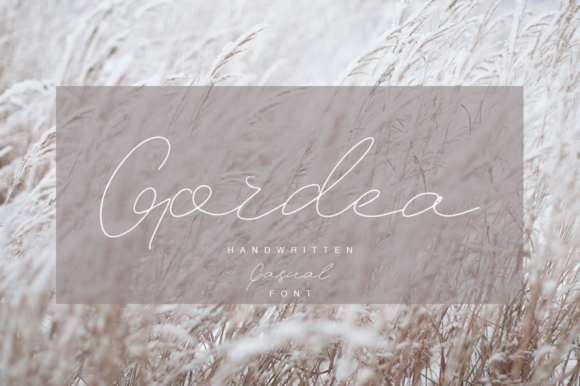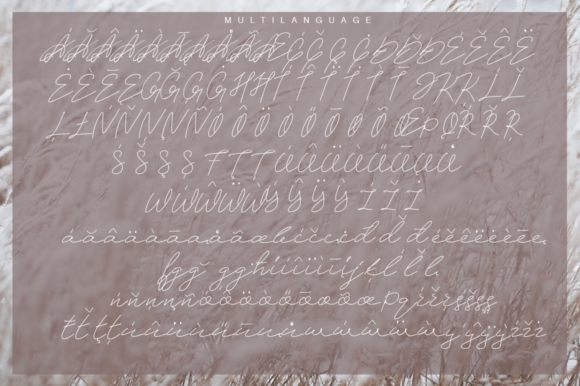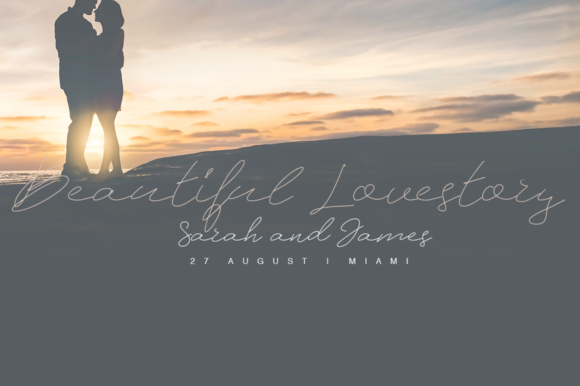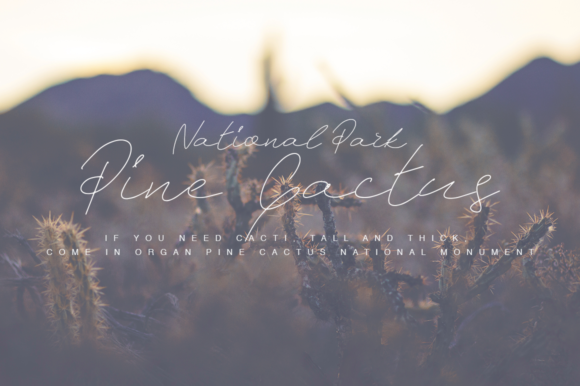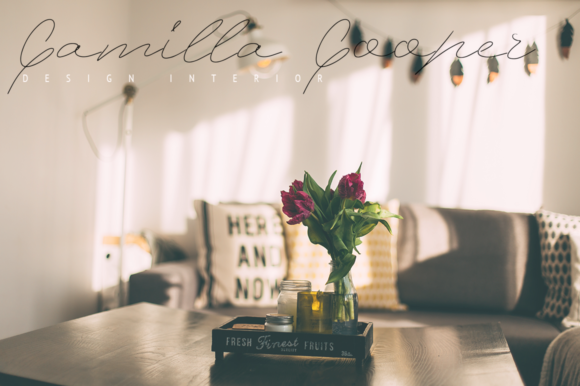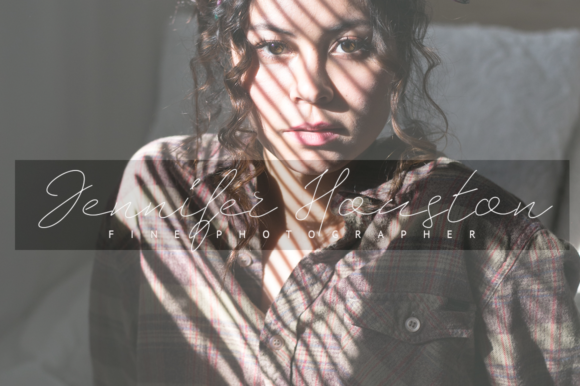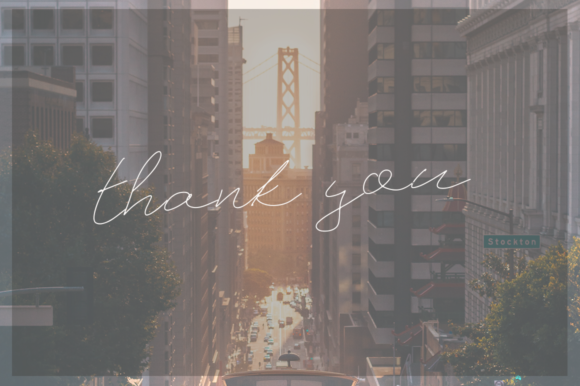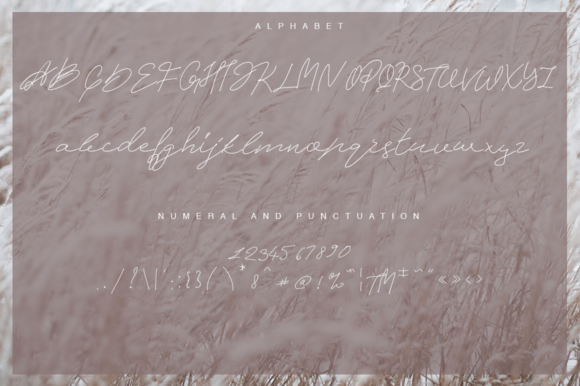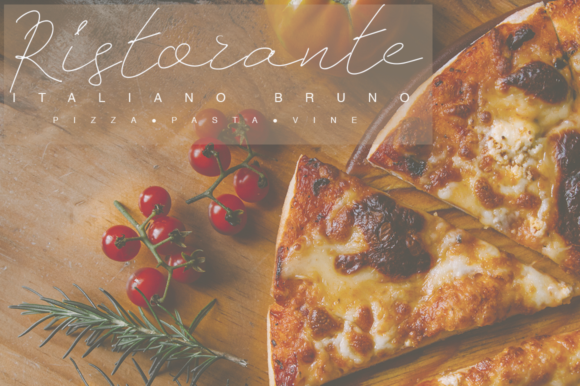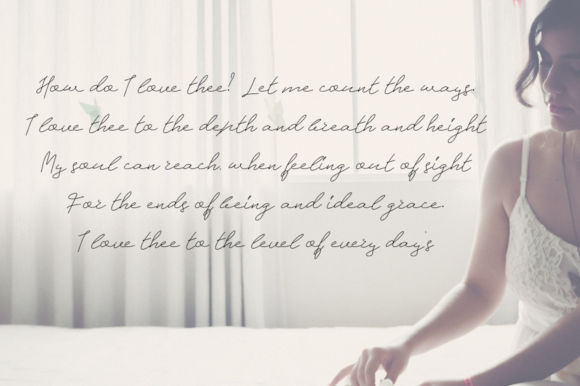
Gordea Font
About Gordea Font
Gordea is a modern font. Every single letter has been carefully crafted to make your text look beautiful. With its modern script style, Gordea is perfect for many different projects, such as: logos, photography, watermarks, quotes, blog headers, posters, weddings, branding, logos and much more!